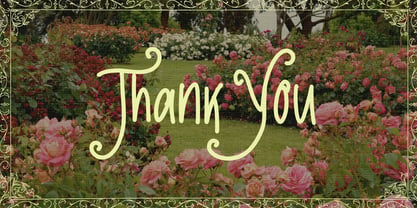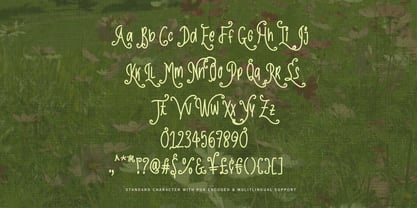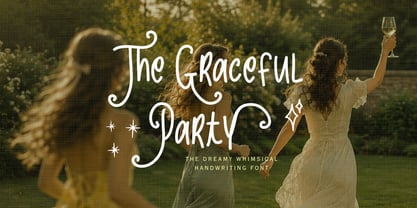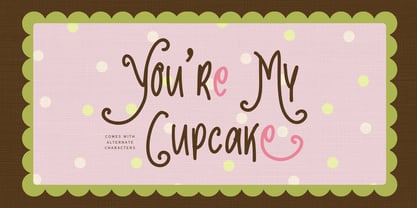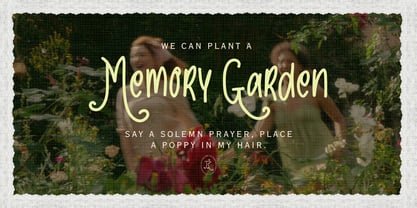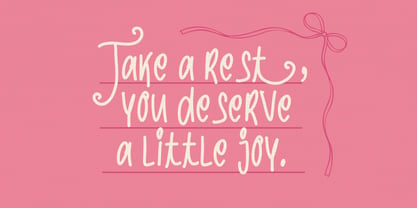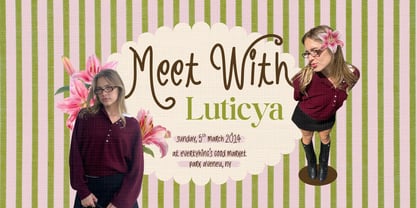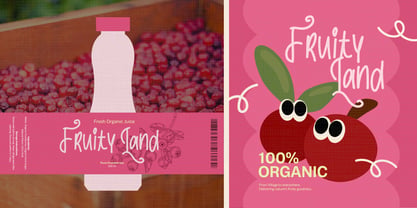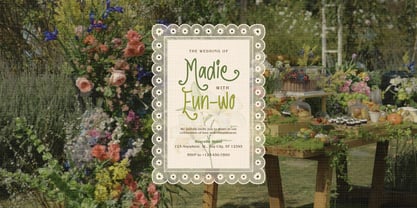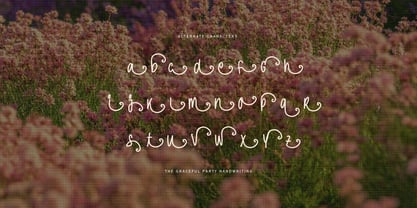
The Grateful Party
by Sloulyfe Studio
The The Grateful Party Font Family was designed by Amelia Dian Isnaini and published by Sloulyfe Studio. The Grateful Party contains 1 styles. More about this family
There’s a light and dreamy feeling in The Graceful Party. With playful handwritten strokes, gentle curls, and whimsical details, it feels like laughter shared in a sunlit garden with friends.
The letters flow naturally with a soft feminine charm, making this font perfect for wedding stationery, party invitations, boutique branding, beauty packaging, social media, and creative projects that want to feel sweet, joyful, and effortlessly graceful.
Designers: Amelia Dian Isnaini
Foundry: Sloulyfe Studio